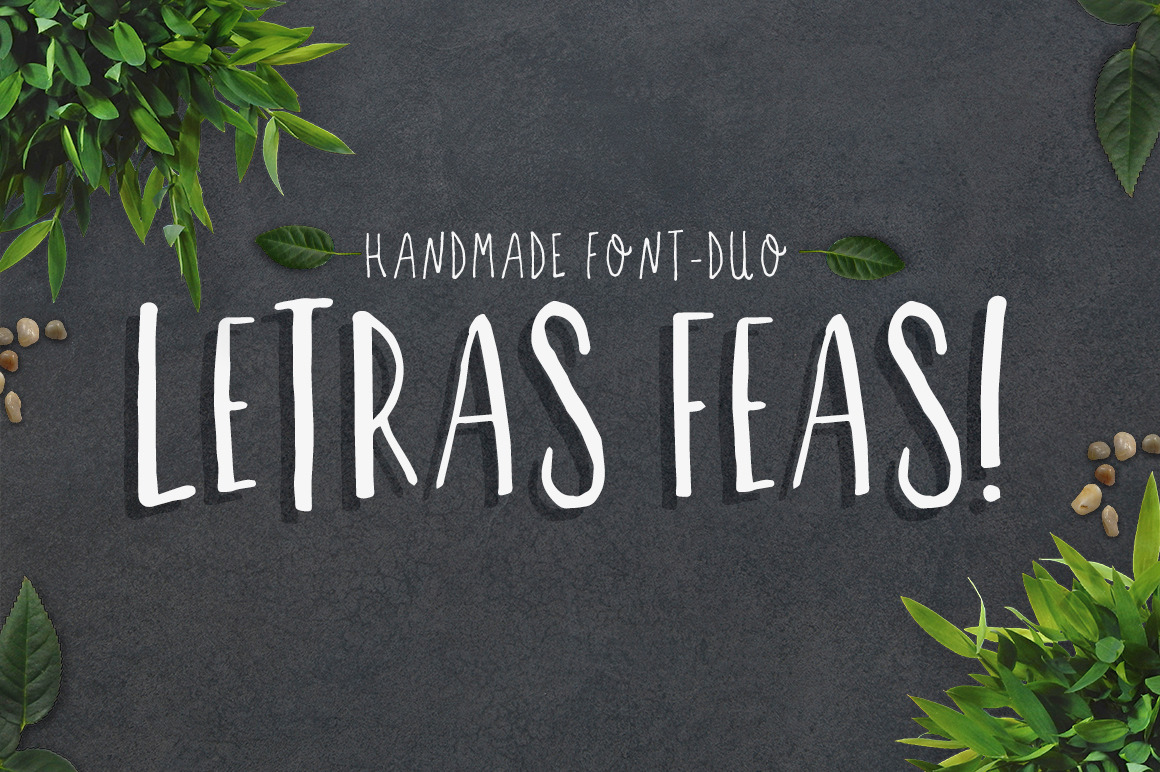
Letras feas - handmade font duo!
LETRAS FEAS - HANDMADE FONT DUO!
A beautiful done font that will give your desigs that handmade touch that you desire! It comes with the thin version and the regular, don't miss out on this amazing font for just 10$
- Perfect for cards, social media, blogs, invitations, logos, brands, etc.
- Include hispanic characters